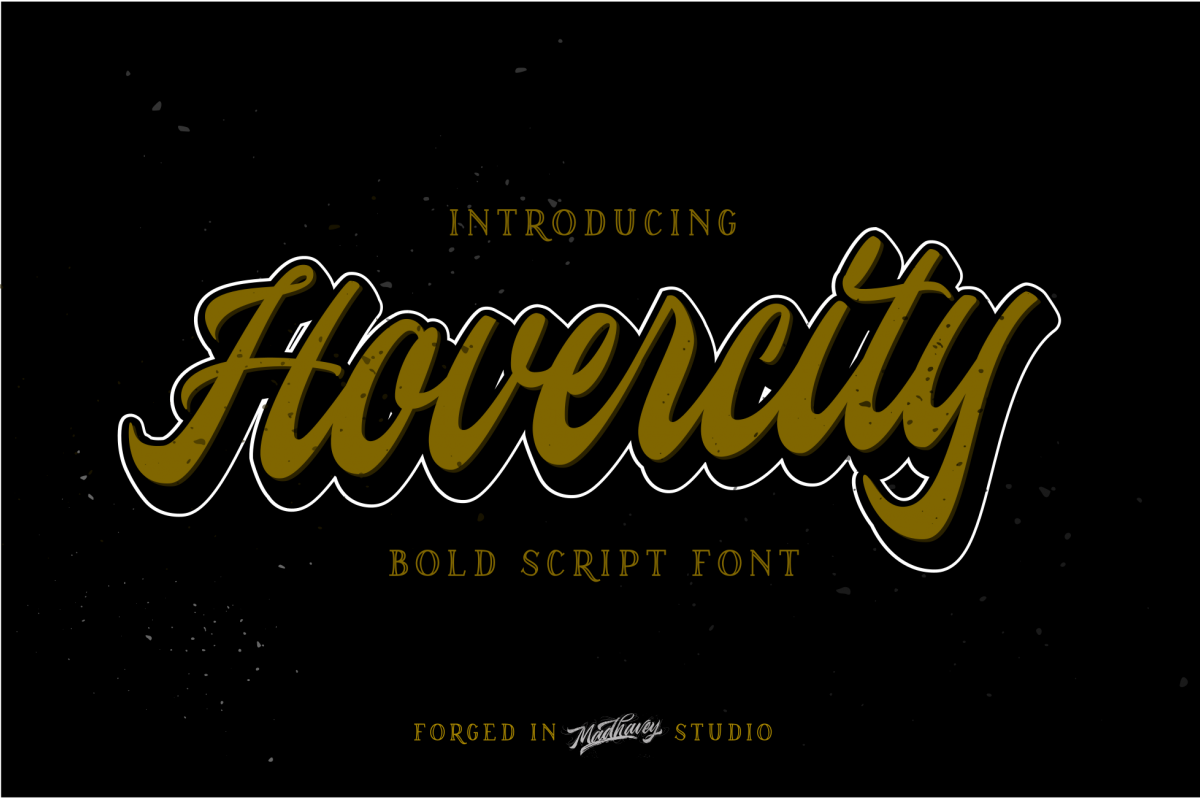
Hovercity script font
The Hovercity is a bold script font. It’s striking look makes it perfect to make any design stand out with an unique look.It’s suitable for many projects, but especially for displays, titles, and logos.
with multilingual support, and advanced with contextual feature, ligature, and neat metrics in All glyps.